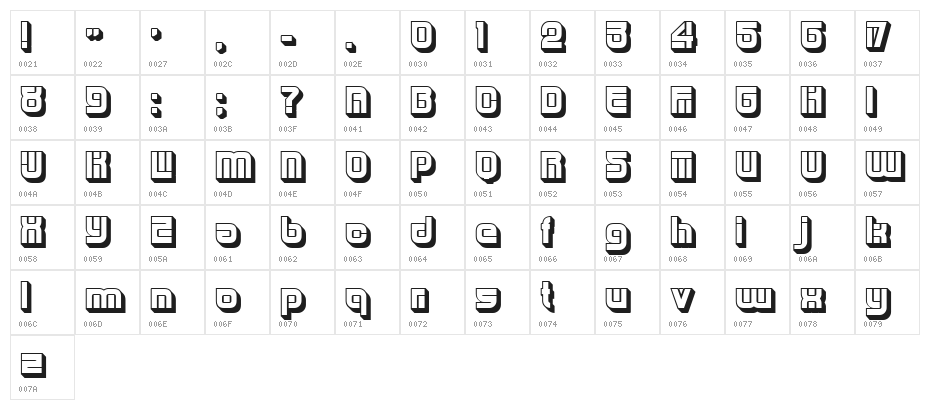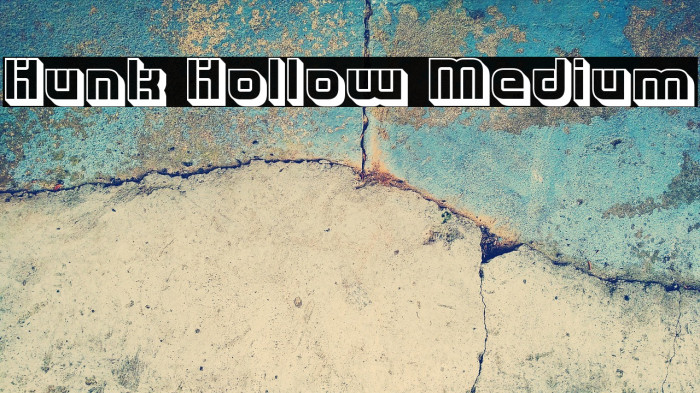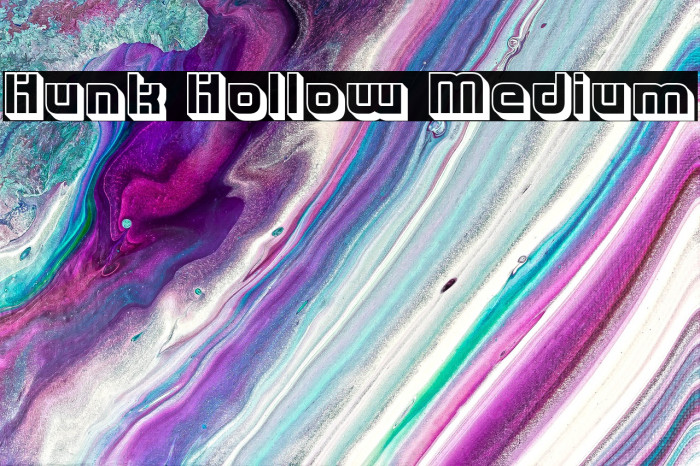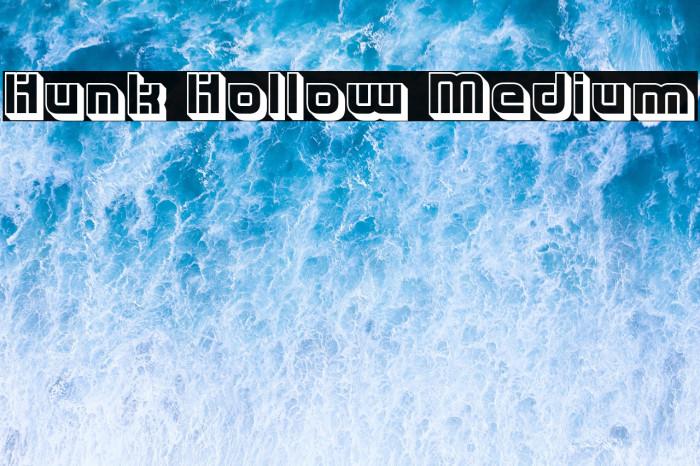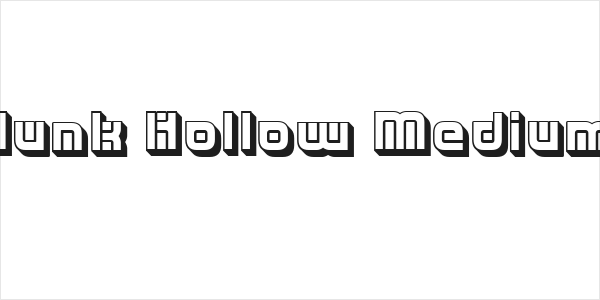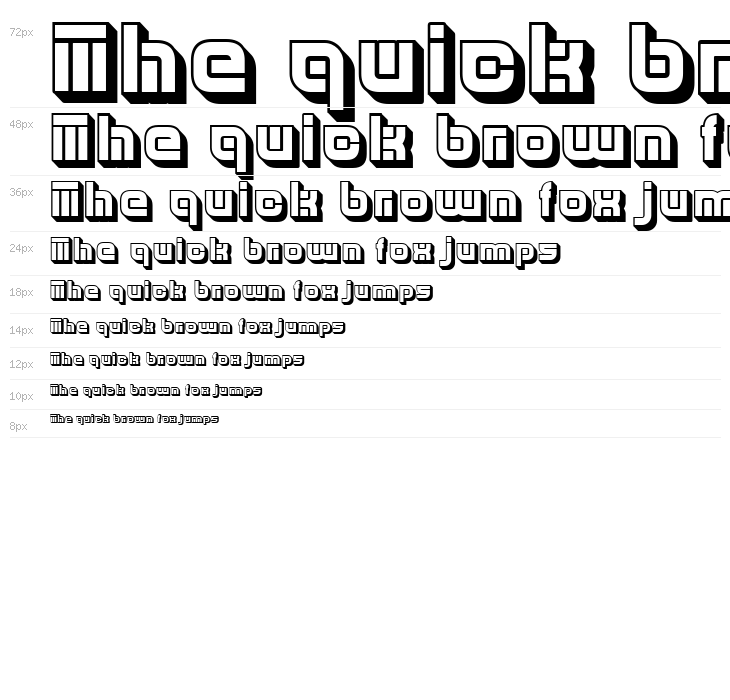
Hunk Hollow Medium Font
Hunk Hollow Medium Description
This font features a bold, three-dimensional appearance with a hollow interior, creating a striking visual impact. The characters are blocky and geometric, with a strong emphasis on vertical and horizontal lines. The shadow effect adds depth, making the letters appear as if they are popping out of the page. The uppercase and lowercase letters maintain a consistent style, with rounded edges that soften the overall look. Numbers and special characters are designed to match the bold, dynamic style of the alphabet. This font is ideal for making a statement in any design project.